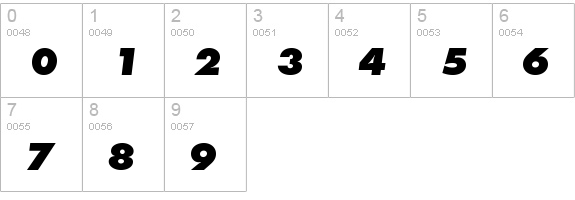
FuturaEF-ExtraBoldObl Font Details
FuturaEF-ExtraBoldObl font is a bold and modern typeface that exudes confidence and sophistication. Its striking design features strong, geometric shapes and a sleek oblique slant, making it perfect for creating eye-catching headlines, logos, and branding materials. With its extra bold weight, this font commands attention and adds a touch of boldness to any design project. The best part is that FuturaEF-ExtraBoldObl is available for free download at FontsMarket.com. This means you can easily access this premium font without any cost, making it a valuable addition to your font library. Whether you're working on a poster, website, or any other creative project, FuturaEF-ExtraBoldObl is sure to make a bold statement and elevate your designs to the next level. Download it now and unleash your creativity with this stunning typeface.